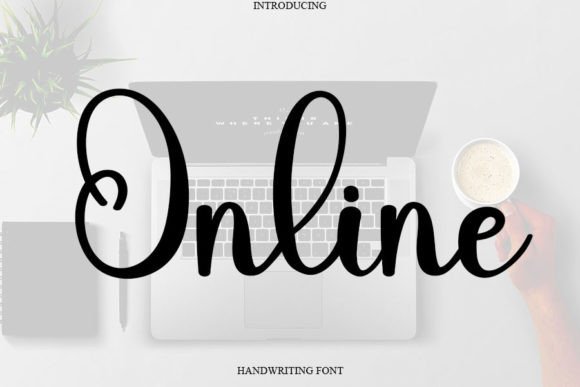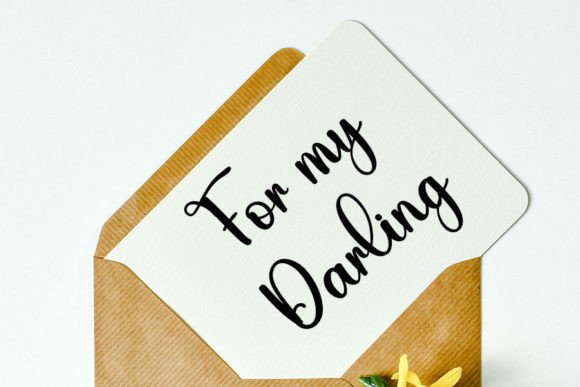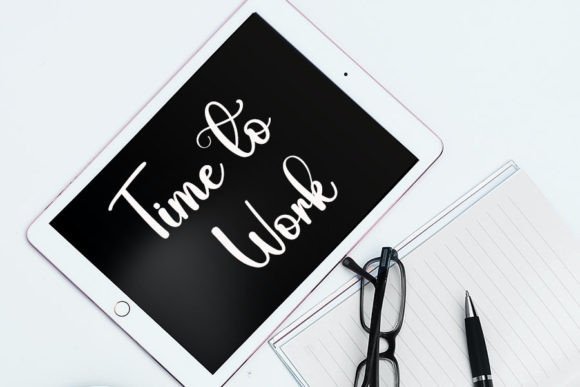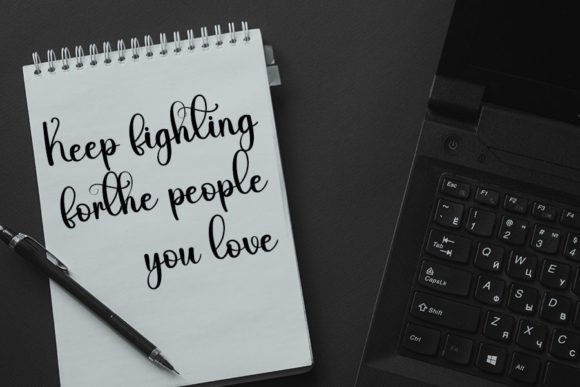
About Online Font
Online, a sweet and beautiful handwritten font, brings a touch of luxury and elegance to your design projects. With characters that gracefully dance along the baseline, this font adds a spark of sophistication to any creative endeavor.
The charm of Online lies in its handwritten style, exuding sweetness and beauty. The characters flowing dynamically along the baseline give the font a lively quality, making it ideal for projects that aim for a touch of luxury.
Consider using Online for a variety of design applications, from branding and product packaging to invitations and social media graphics. Its versatility allows it to seamlessly adapt to different contexts, enriching each project with a luxurious spark.
The handwritten elegance of Online extends seamlessly to both digital and print materials. Whether enhancing the visual appeal of a website or adding flair to printed materials like invitations and posters, Online stands out as a font that elevates the overall aesthetic.
In essence, Online is more than just a font; it’s a design element that infuses your projects with a sweet and luxurious touch. Embrace the charm of Online and let it add a spark of beauty to your design creations, making them stand out with an air of sophistication.